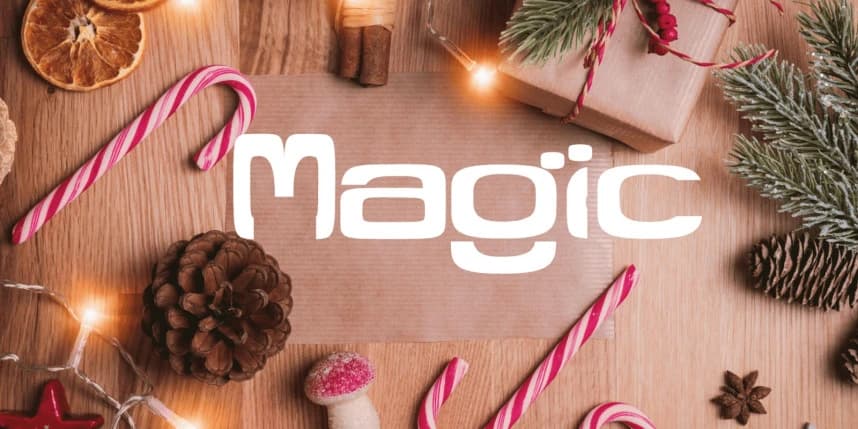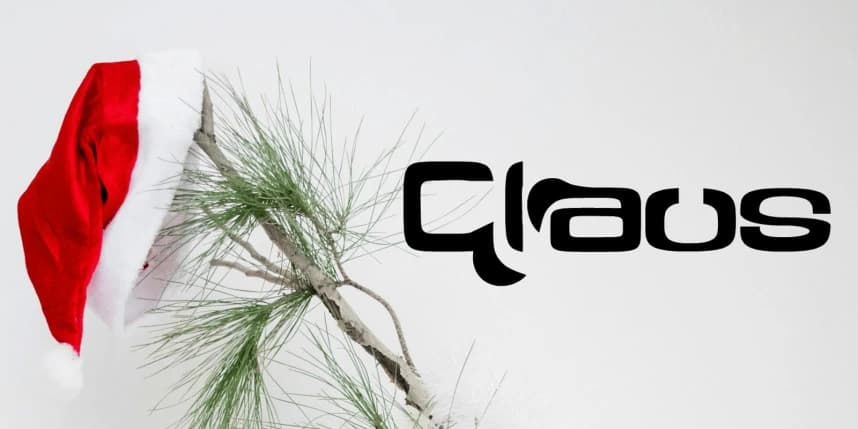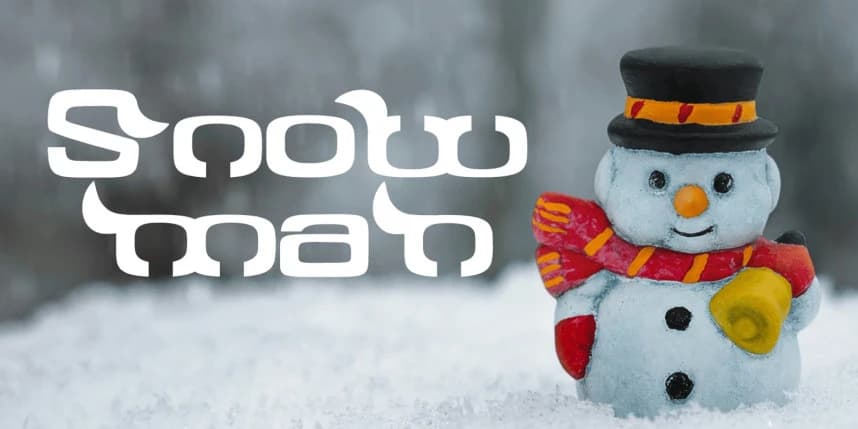
Elfis Font
Elfis Font is a charming handwritten script font inspired by the magical atmosphere of winter holidays, fairy tales, and cheerful elf characters. Its gentle strokes and smooth curves create a warm, playful